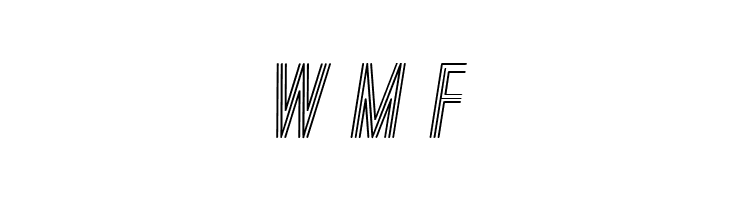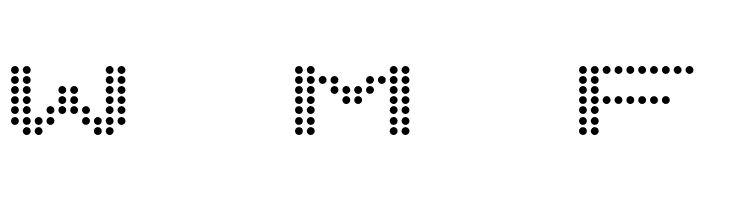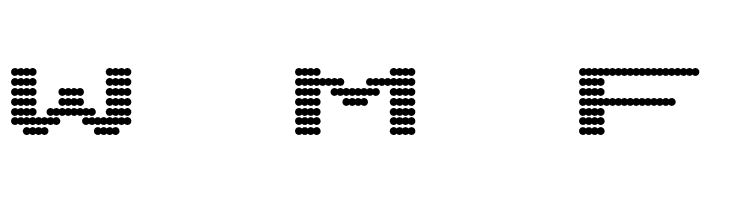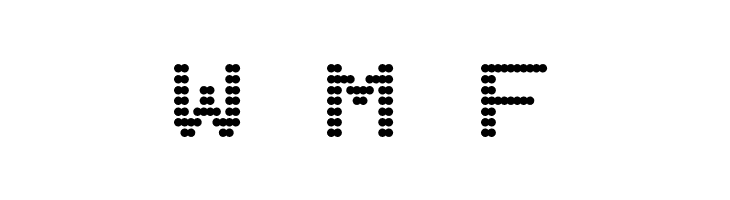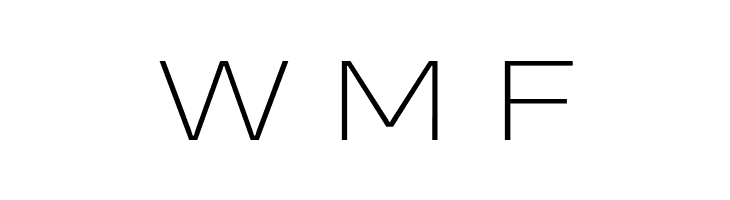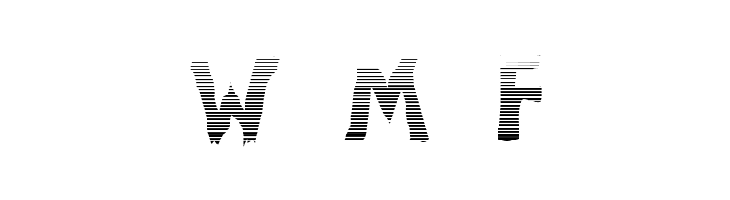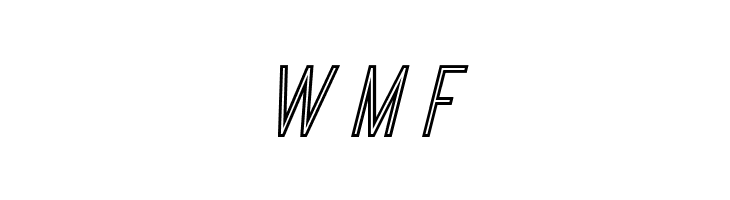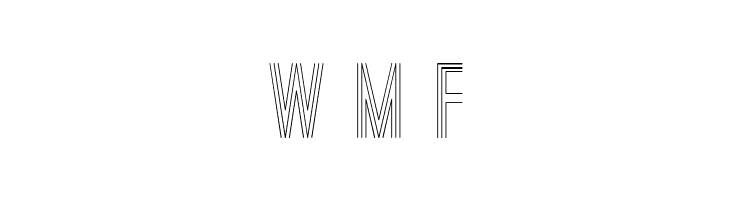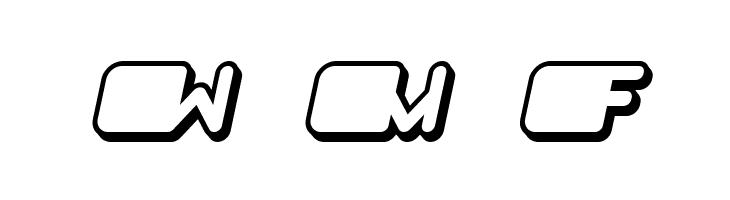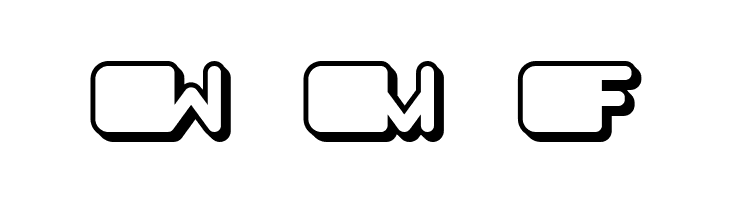
A bold, geometric font with a three-dimensional shadow effect.
A bold, italicized font with a unique triple-line design, perfect for modern projects.
A decorative, triple-line font with geometric precision and modern flair.
A bold, triple-line geometric font with a modern and retro feel.
A dot matrix style font with a retro digital display aesthetic.
A bold, expanded dot-matrix style font with a retro digital display vibe.
A bold, dot matrix style font with a retro-tech aesthetic.
A modern, dotted font with a geometric and digital appearance.
A bold, geometric font with a brick wall pattern, ideal for decorative use.
A modern, geometric font with rounded, smooth characters.
A modern, minimalist font with thin, uniform strokes and geometric precision.
A modern, geometric sans-serif font with clean lines and rounded edges.
A thin, geometric sans-serif font with a clean and modern design.
A modern, thin font with geometric shapes and minimal contrast.
A modern, geometric font with a clean and minimalist design.
A modern, thin, and wide font with a clean, geometric design.
A modern, wide, extra light sans-serif font with geometric shapes.
A modern, geometric sans-serif font with bold, clean lines.
A bold, striped font with a distressed, horror-themed aesthetic.
A bold, geometric font with a double-line outline for a modern look.
A modern, italicized inline font with a sleek and geometric design.
A bold, geometric font with triangular elements and rounded letterforms.
A modern, geometric font with clean lines and rounded shapes.
A bold, hollow font with a modern, geometric design.
A bold, geometric font with a three-dimensional outline and modern appeal.
A bold, geometric font with a modern, outlined style.
A bold, decorative font with a 3D effect and italicized style.
A bold, decorative font with a unique outline and filled design, perfect for striking headlines.